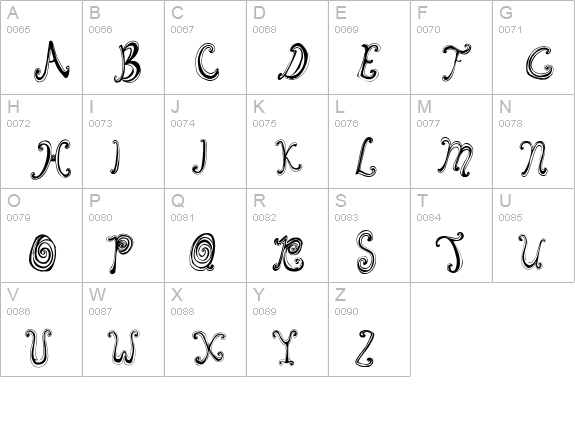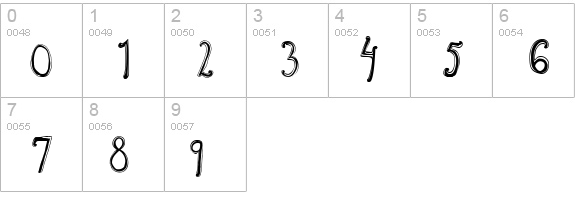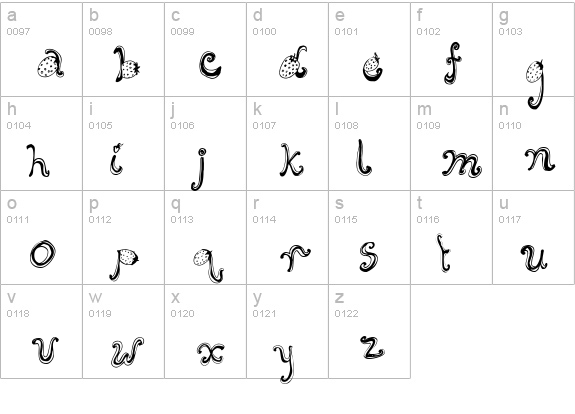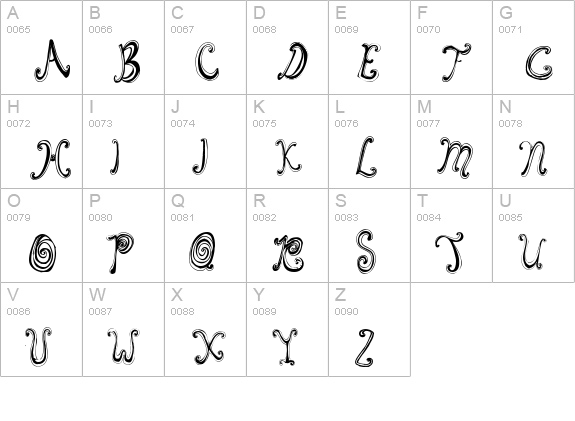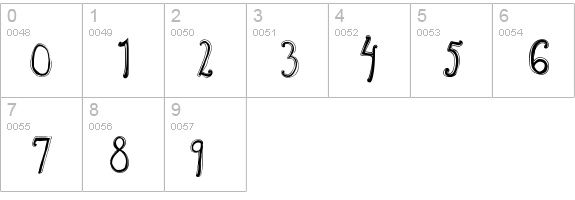
Starberry Swirl Delight Font Details
Introducing the mesmerizing Starberry Swirl Delight font, a true delight for typography enthusiasts. This font is a perfect blend of elegance and playfulness, making it suitable for a wide range of creative projects. Starberry Swirl Delight features beautifully crafted letters with delicate swirls, giving each character a unique and enchanting touch. The flowing curves and intricate details of this font bring a sense of whimsy and sophistication to any design. This font is not only visually stunning but also versatile. It can be used for various purposes, such as logos, branding, invitations, posters, and so much more. Whether you want to add a touch of elegance to a wedding invitation or create a playful design for a children's book cover, Starberry Swirl Delight is the perfect choice. One of the best things about Starberry Swirl Delight is that it is freely available to download at FontsMarket.com. Yes, you heard it right! This fabulous font can be yours without any cost. FontsMarket.com provides a wide selection of high-quality fonts, and Starberry Swirl Delight is just one of the many gems you can find there. So why wait? Dive into the world of creativity and let Starberry Swirl Delight elevate your designs to a whole new level. Download this font today and let your imagination soar.